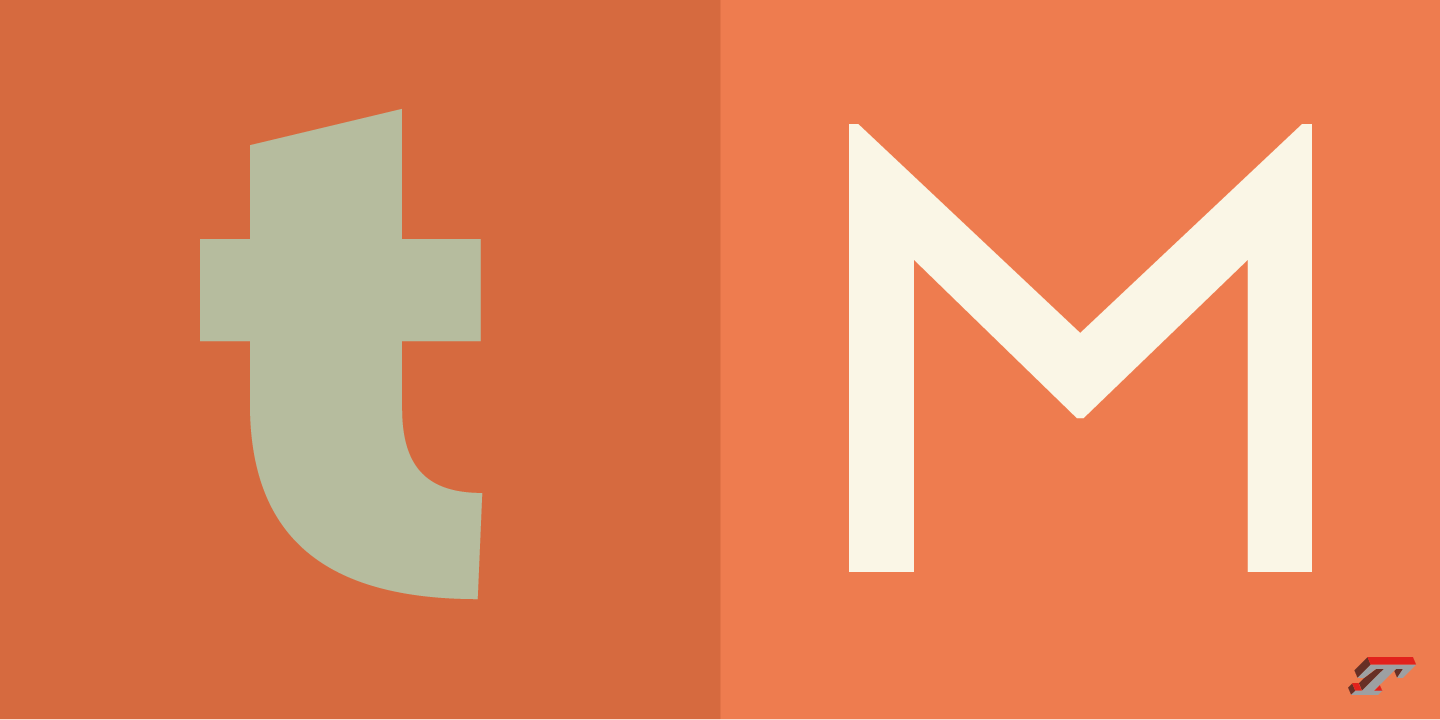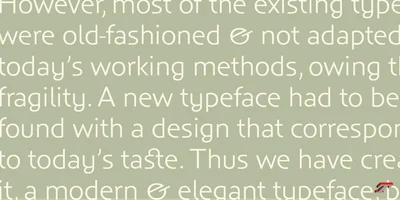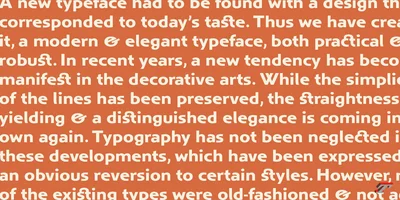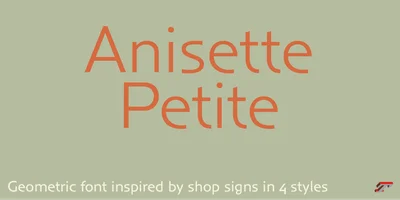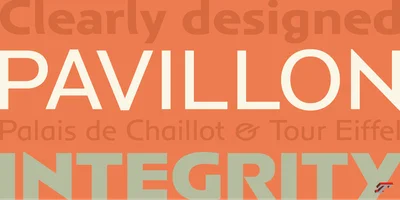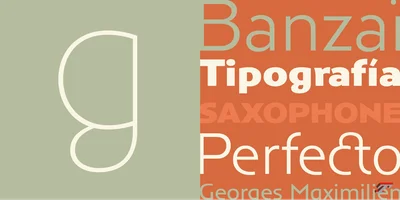
About Anisette
- Foundry
- Typofonderie
- Classification
- display
- Style
- geometric
Anisette is a geometric display typeface designed by Jean Francois Porchez and published by Typofonderie. The design combines Art Deco-influenced geometric construction with contemporary refinement, creating a distinctive display face that evokes the architectural lettering and poster typography of the early 20th century.
History and Design
Porchez created Anisette to explore the intersection of geometric purity and period character. The typeface draws on the Art Deco tradition of reducing letterforms to bold geometric shapes, but applies contemporary typographic knowledge to produce forms that are both historically evocative and technically refined.
The name "Anisette" connects the design to French culture and the visual language of vintage packaging and cafe signage. The letterforms feature the kind of confident geometric construction that defined the graphic design of the 1920s and 1930s, reinterpreted with the precision of digital type design.
Technical Characteristics
- Bold geometric forms: Strong, confident letterforms built from basic geometric shapes
- Art Deco influence: Period character drawn from early 20th-century design traditions
- Display optimization: Proportions and details tuned for large-size headline use
- Distinctive character: Unique personality that stands apart from generic geometric sans-serifs
- Multiple weights: Range allowing tonal variation in display compositions
Use Cases
Anisette suits bold, characterful display applications:
- Packaging design: Vintage-inspired branding for food, beverage, and lifestyle products
- Restaurant and hospitality branding: Period-appropriate identity for bars and restaurants
- Poster typography: Bold geometric headlines for event and cultural promotion
- Editorial display: Magazine covers and section headings with distinctive character
- Retail and signage: Eye-catching storefront and environmental graphics